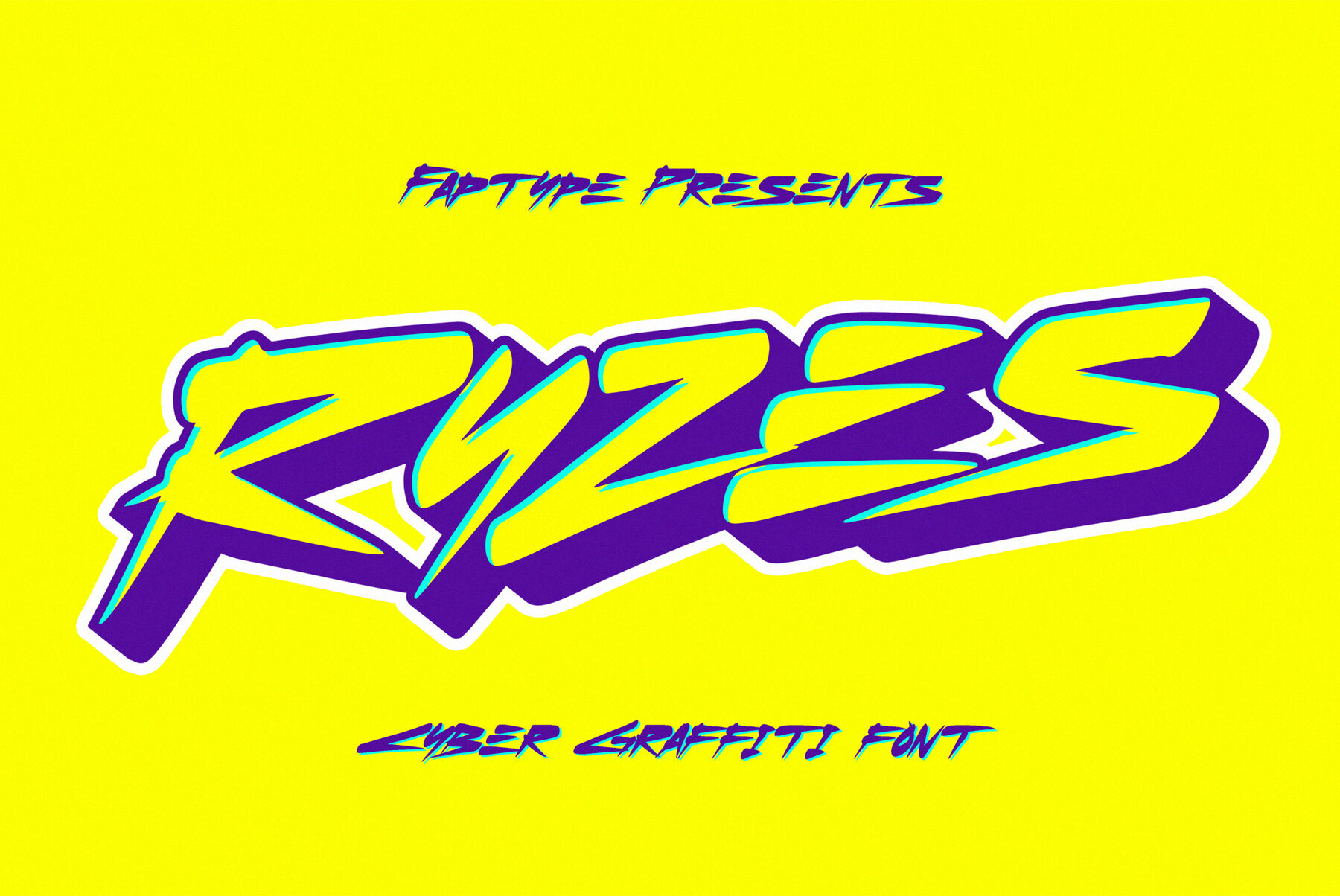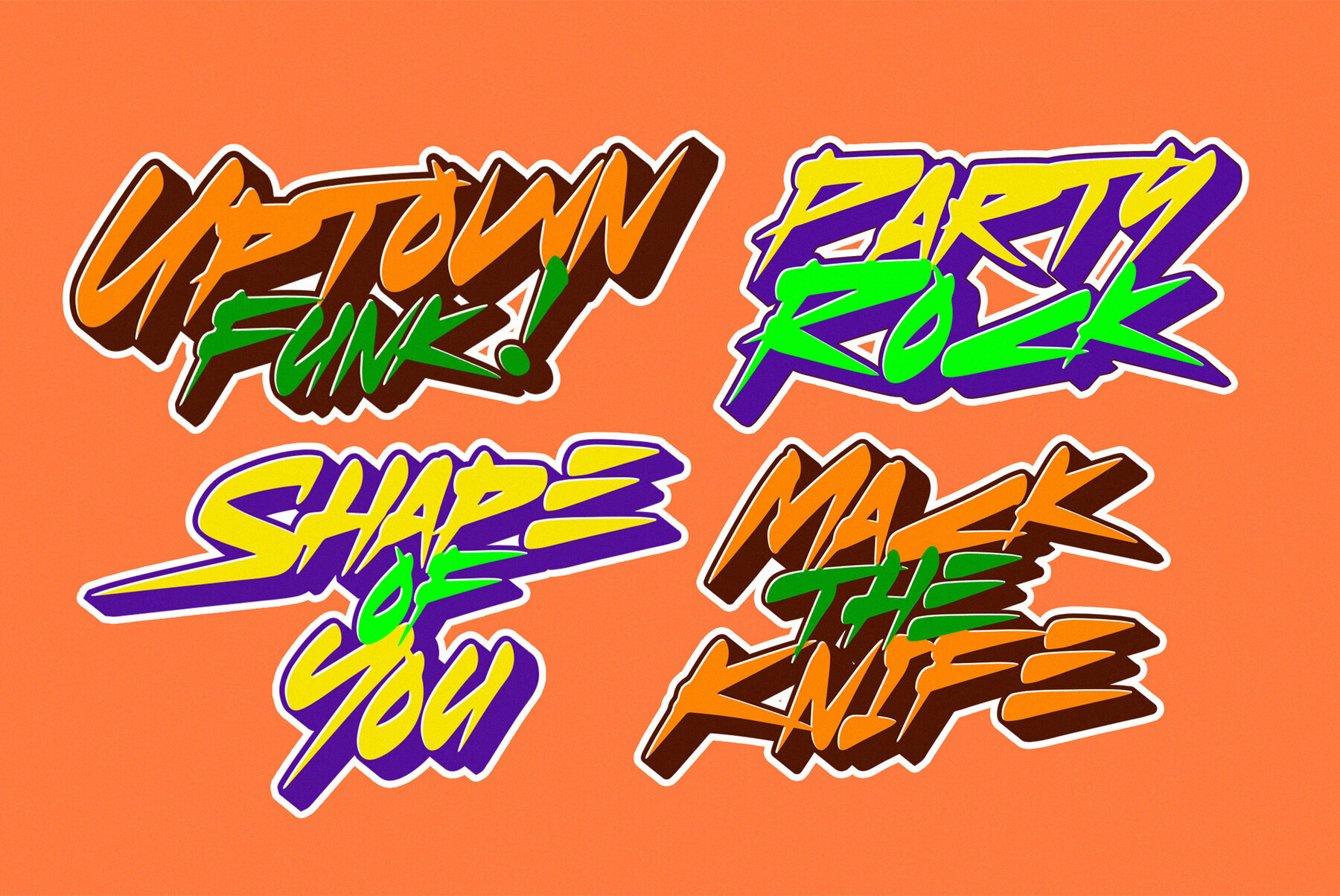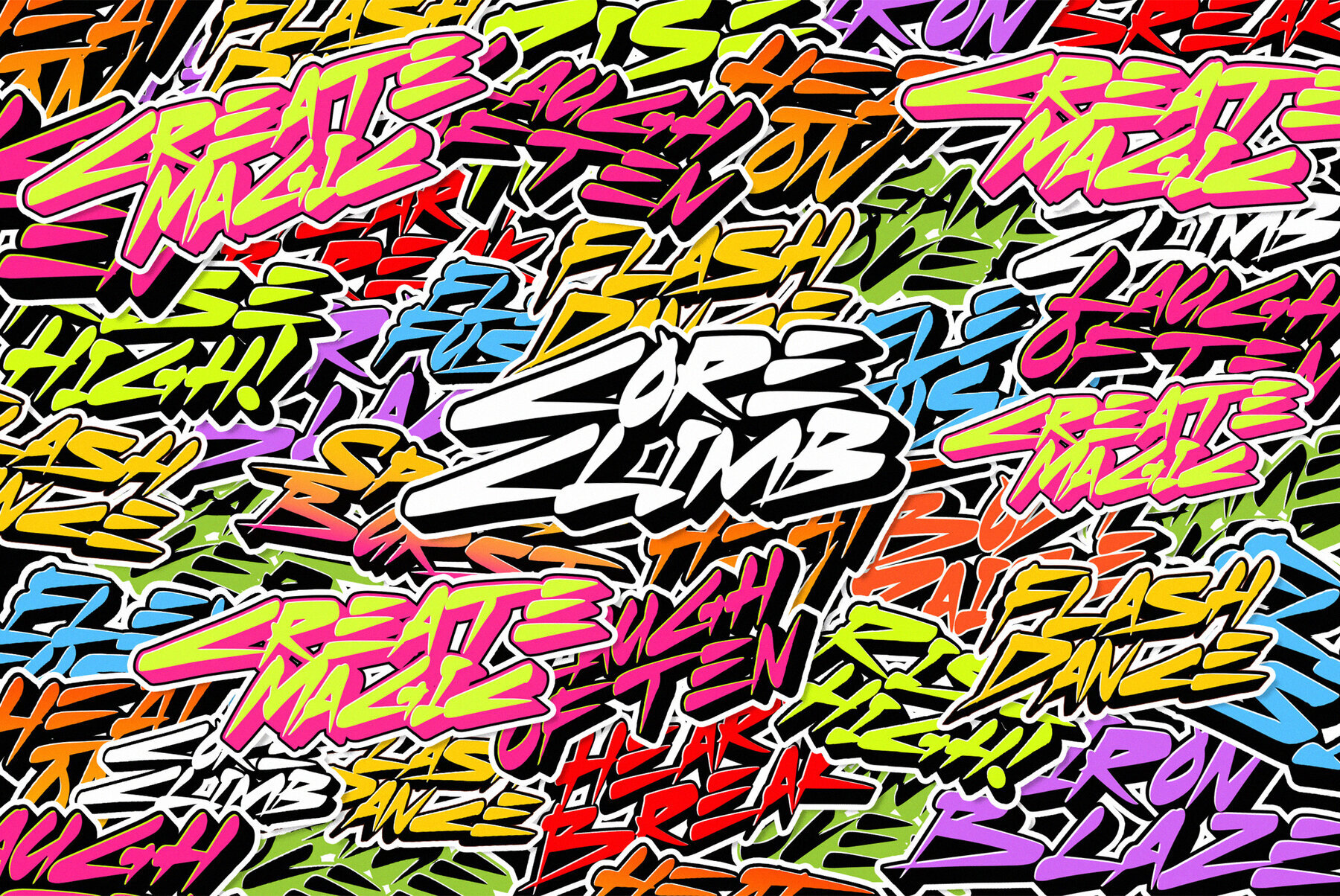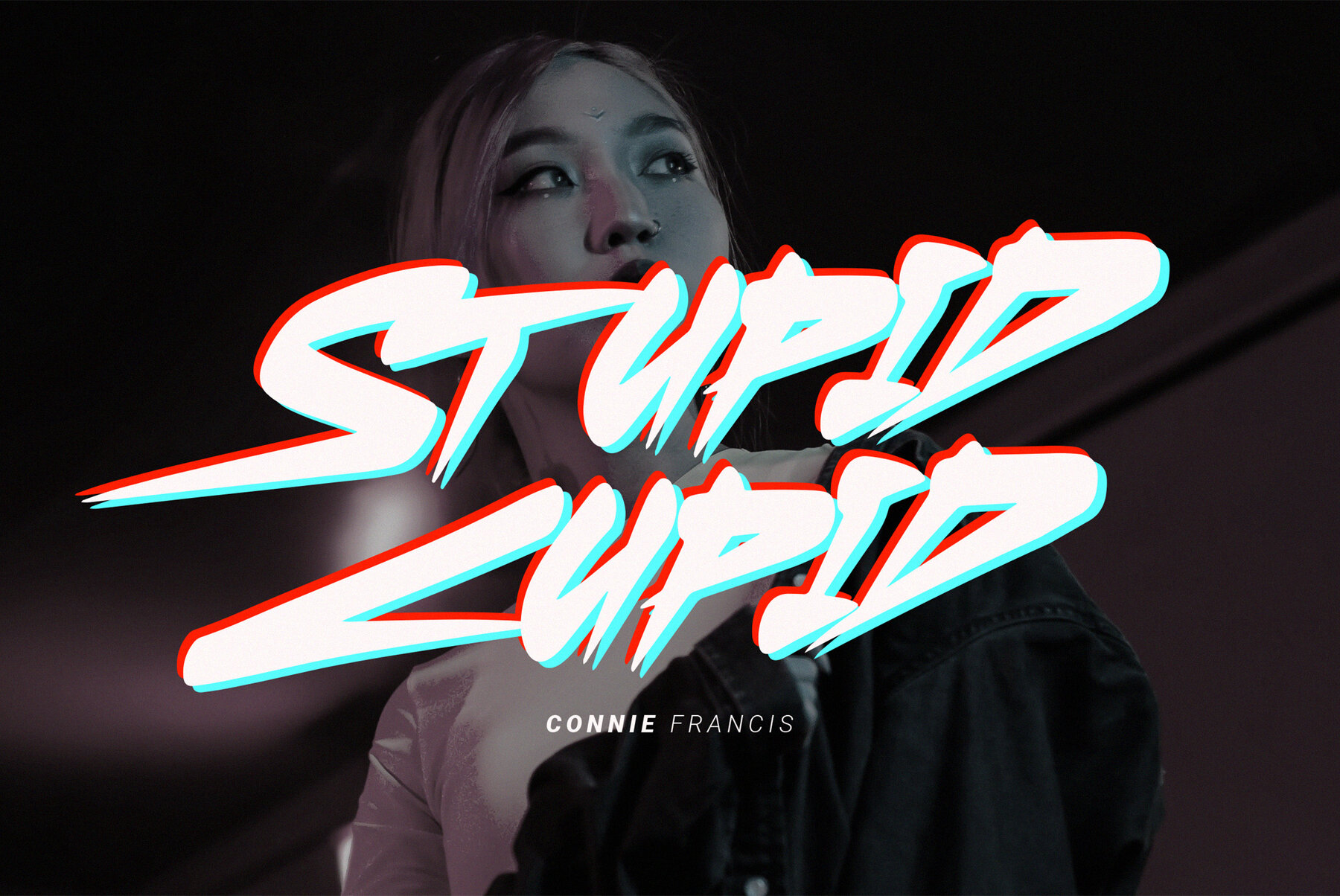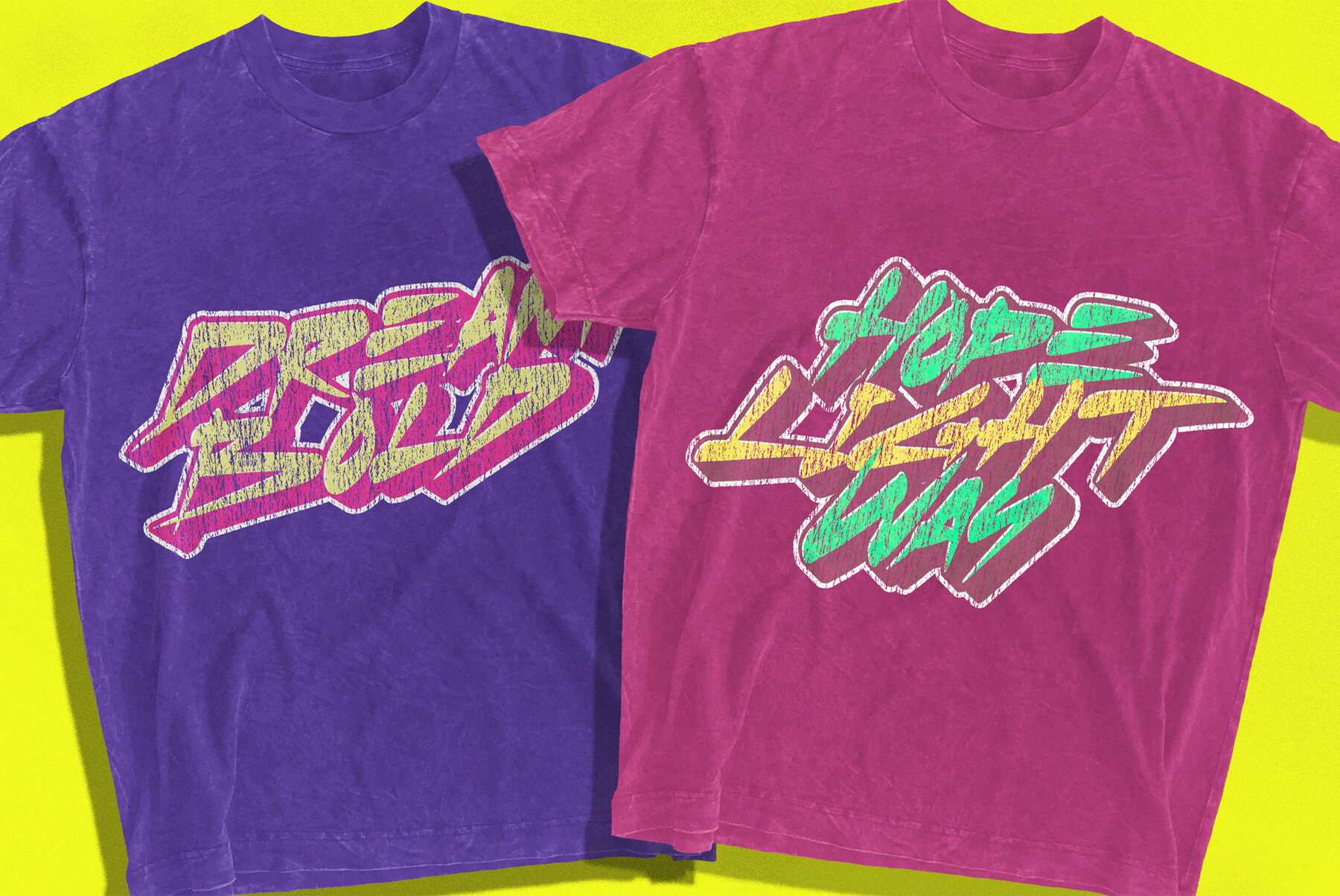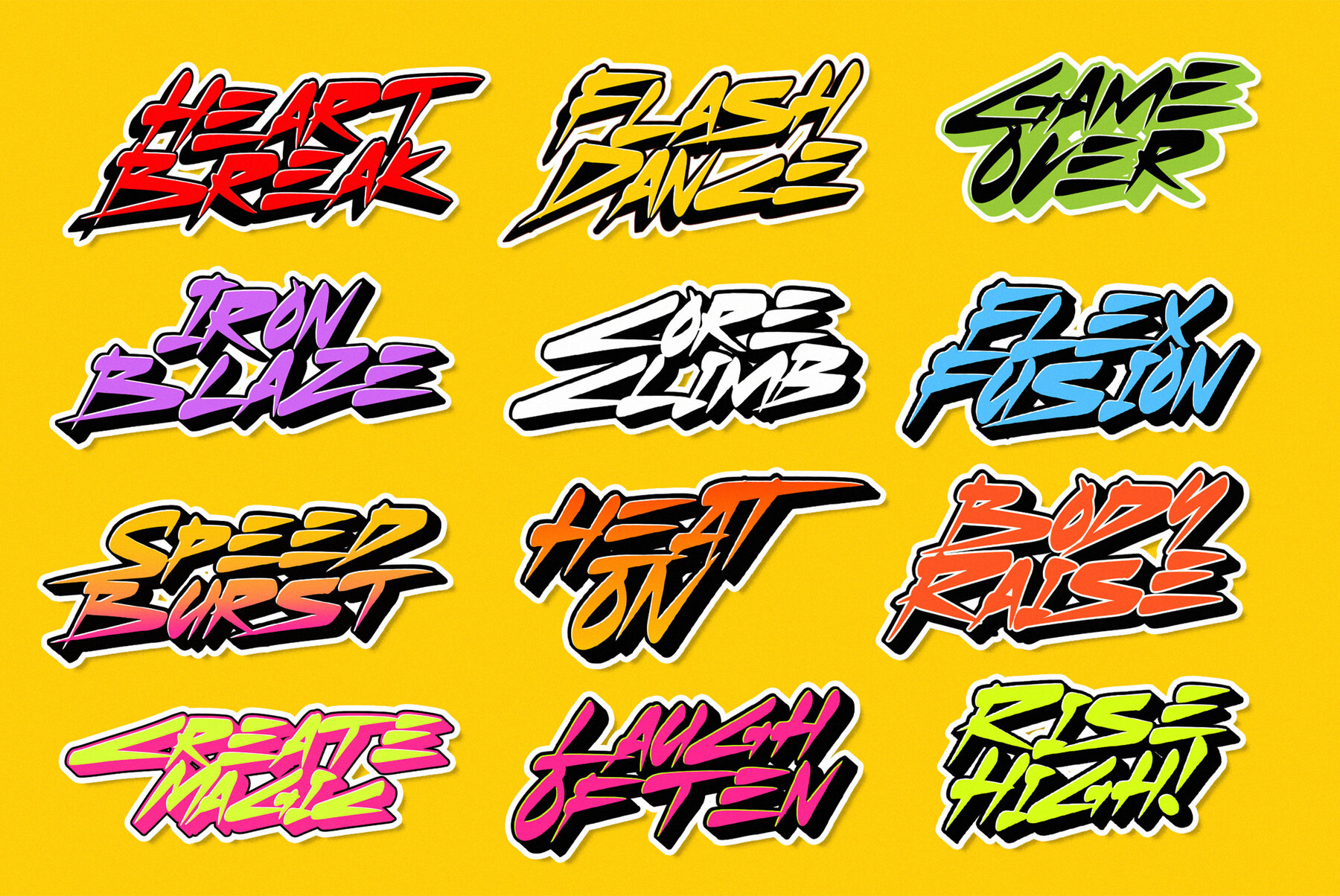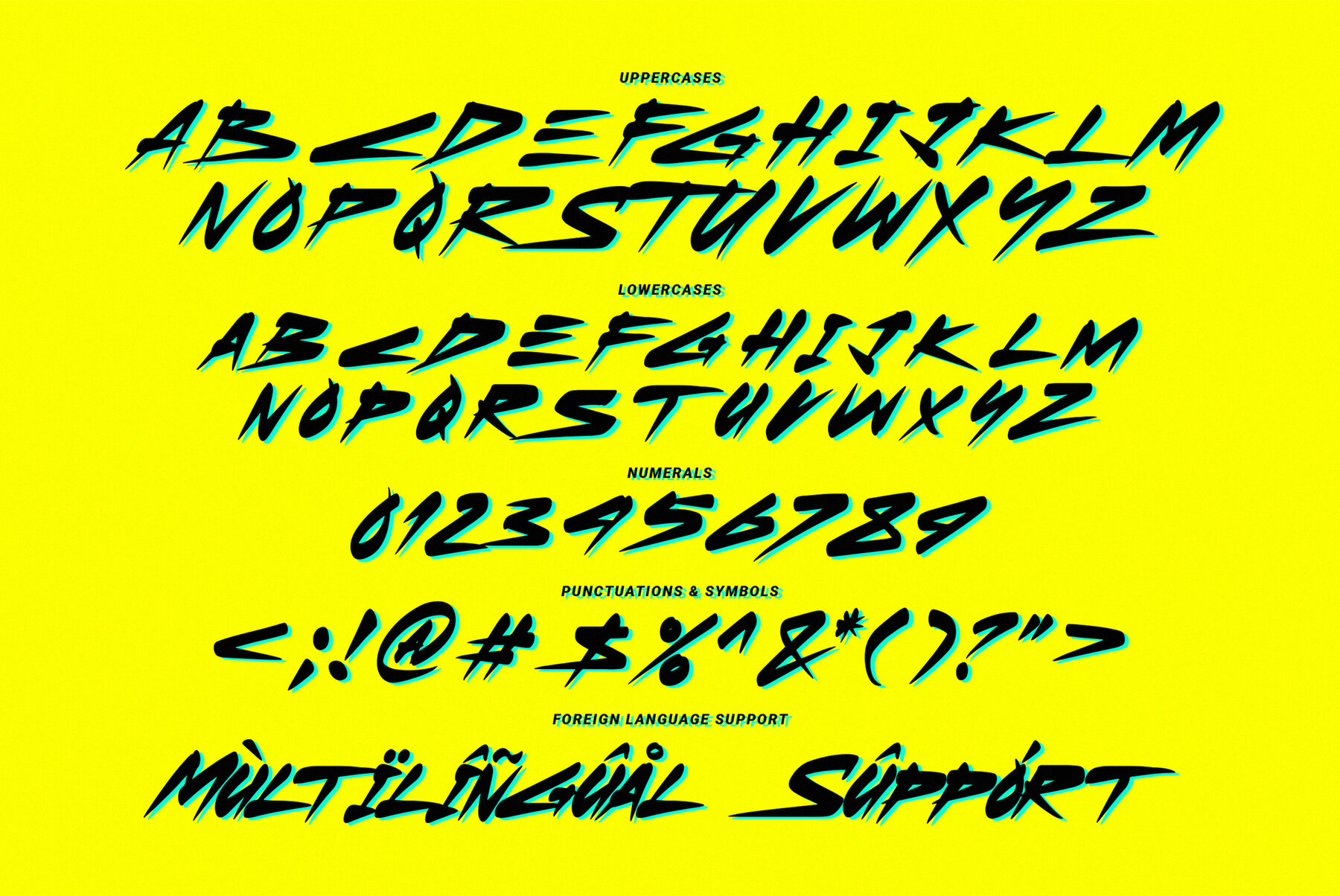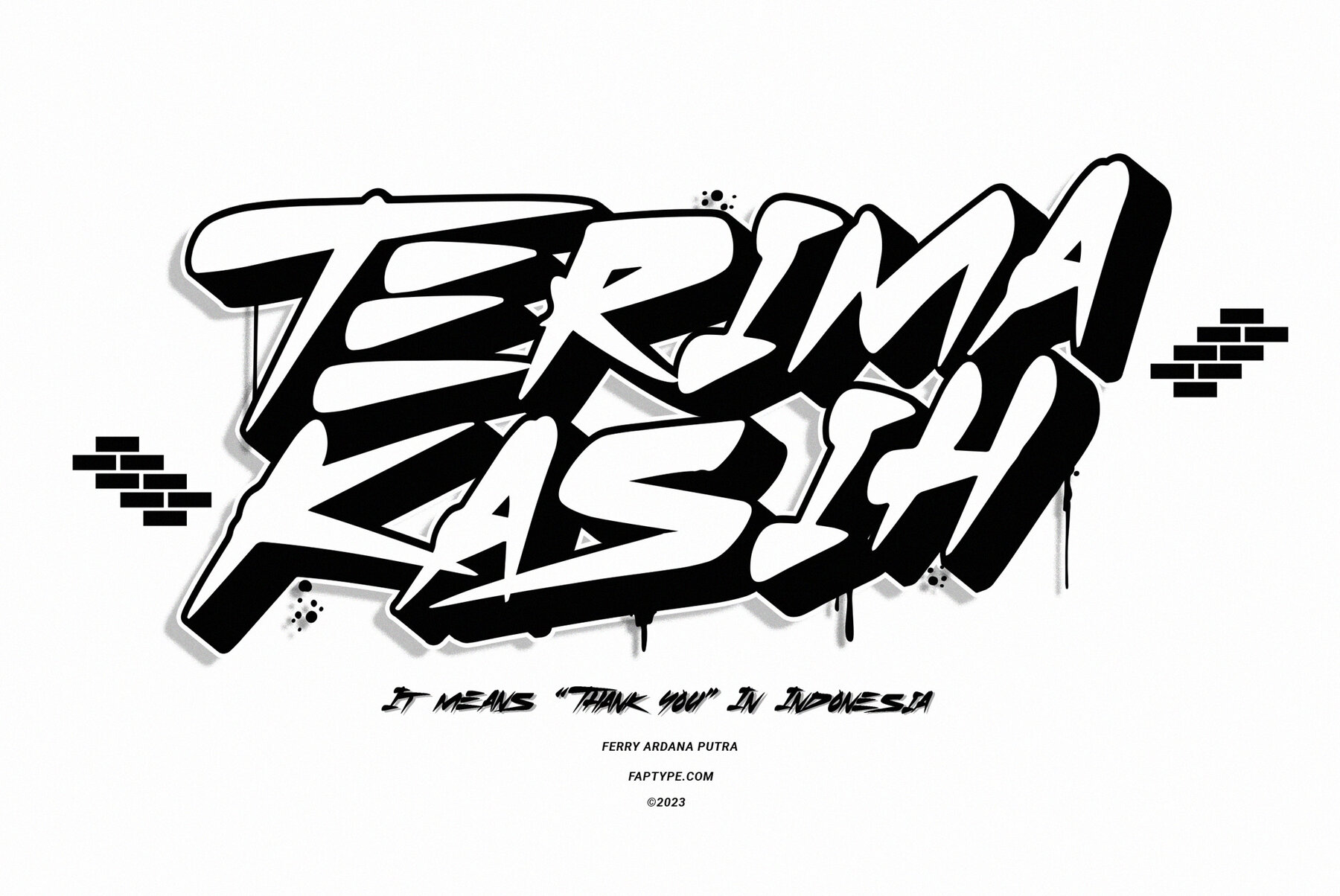
Ryzes Font
Experience the bold allure of "Ryzes"—a font that immerses you in the captivating world of cyber graffiti, embodying a distinct cyberpunk essence. This font bridges the realms of rebellion and technology, offering a strikingly edgy and futuristic design. "Ryzes" perfectly encapsulates the essence of the cyberpunk genre with its high-tech and rebellious spirit. Each character exudes an anarchic energy, giving your designs a compelling and unique flair. Equipped with extensive multi-language support, "Ryzes" ensures your messages transcend borders, effectively reaching audiences worldwide across various languages and scripts. This font includes a complete character set with uppercase and lowercase letters, numerals, and a wide array of symbols and punctuations, offering both visual appeal and functional adaptability. "Ryzes" enhances your creativity with an extruded version, adding depth and dimension to your projects. This allows for effortless creation of 3D text, aligning with the bold cyberpunk aesthetic. The regular and extruded styles combine to provide endless design possibilities. Whether for cyberpunk-themed branding, futuristic posters, or any project demanding a cyber graffiti look, "Ryzes" serves as the ultimate design companion. It empowers you to craft designs resonating with the vibrant and dynamic spirit of the cyberpunk genre in both 2D and 3D.Ryzes: Futuristic Cyber Graffiti Font
Cyberpunk Inspiration
Global Communication
Comprehensive Character Set
Extruded Design Options
Ideal for Futuristic Projects
Features of Ryzes